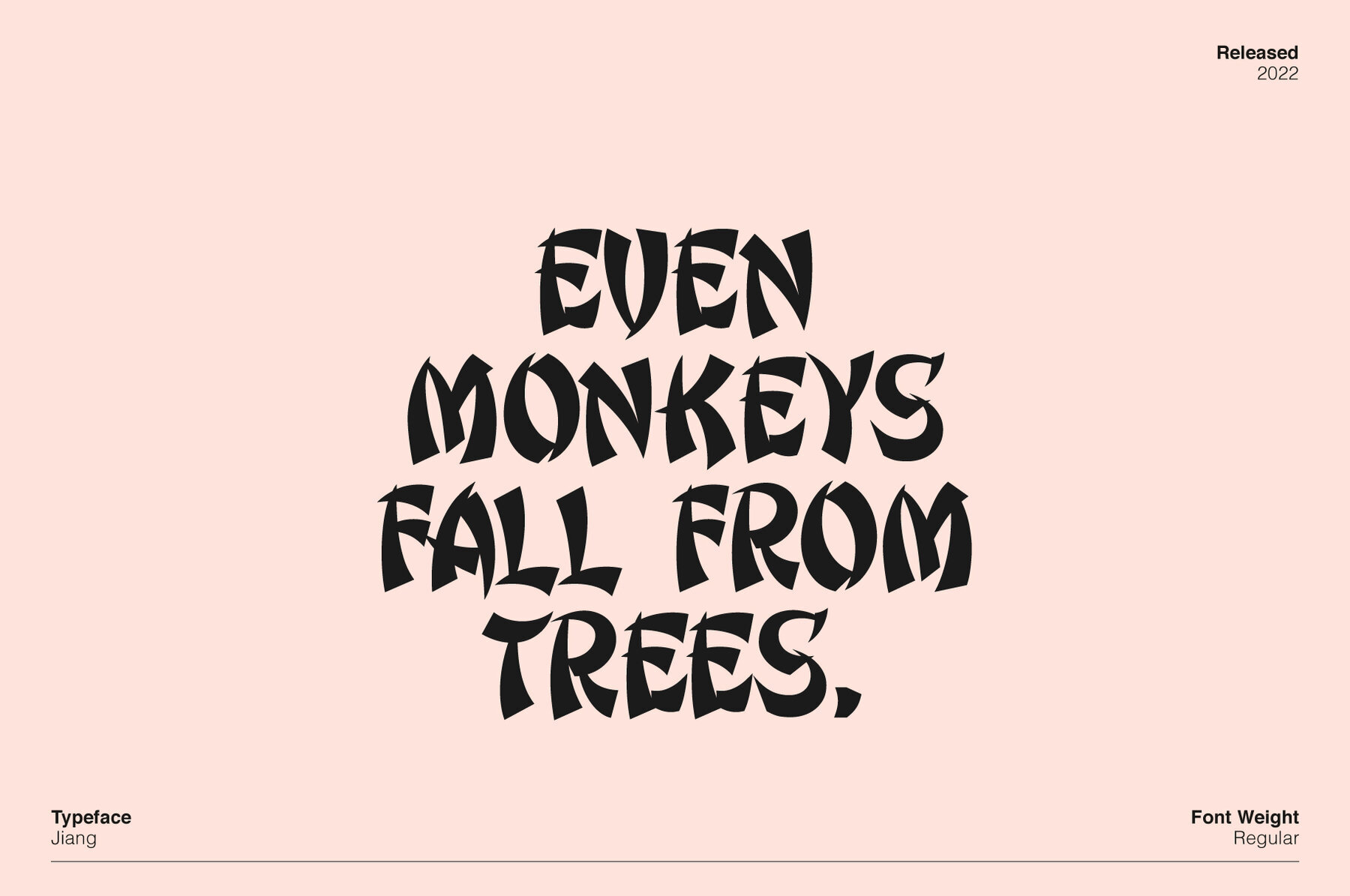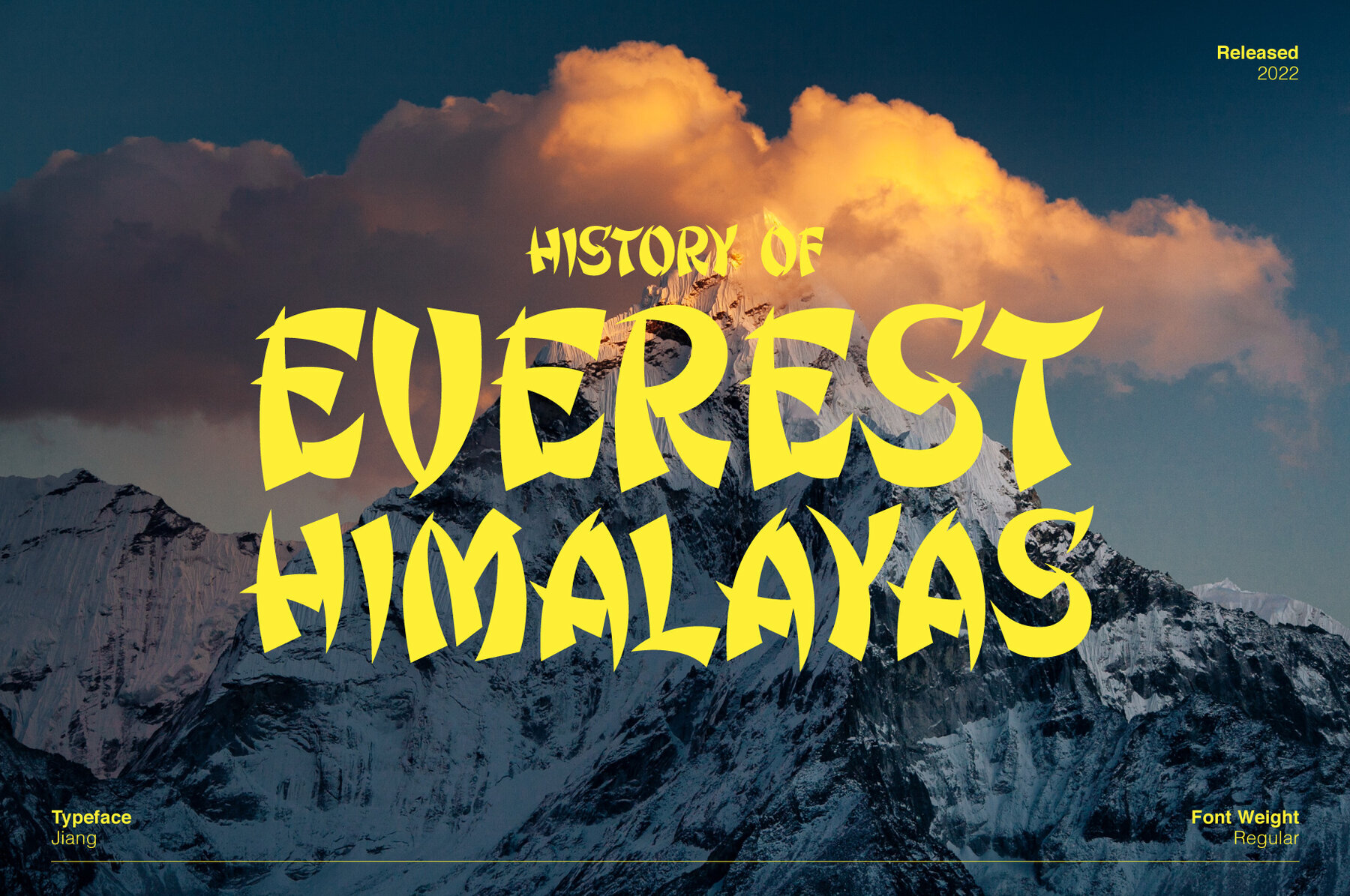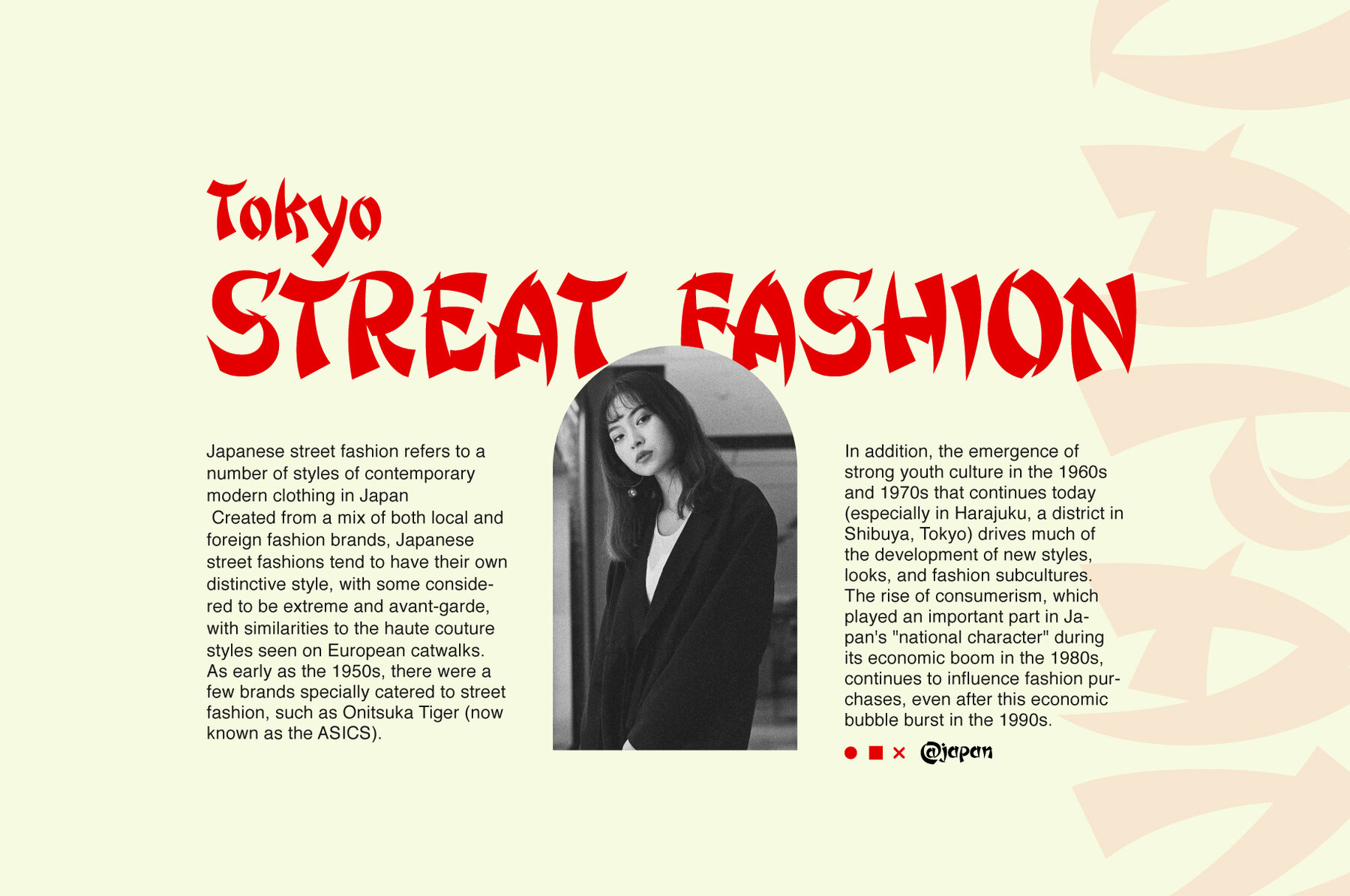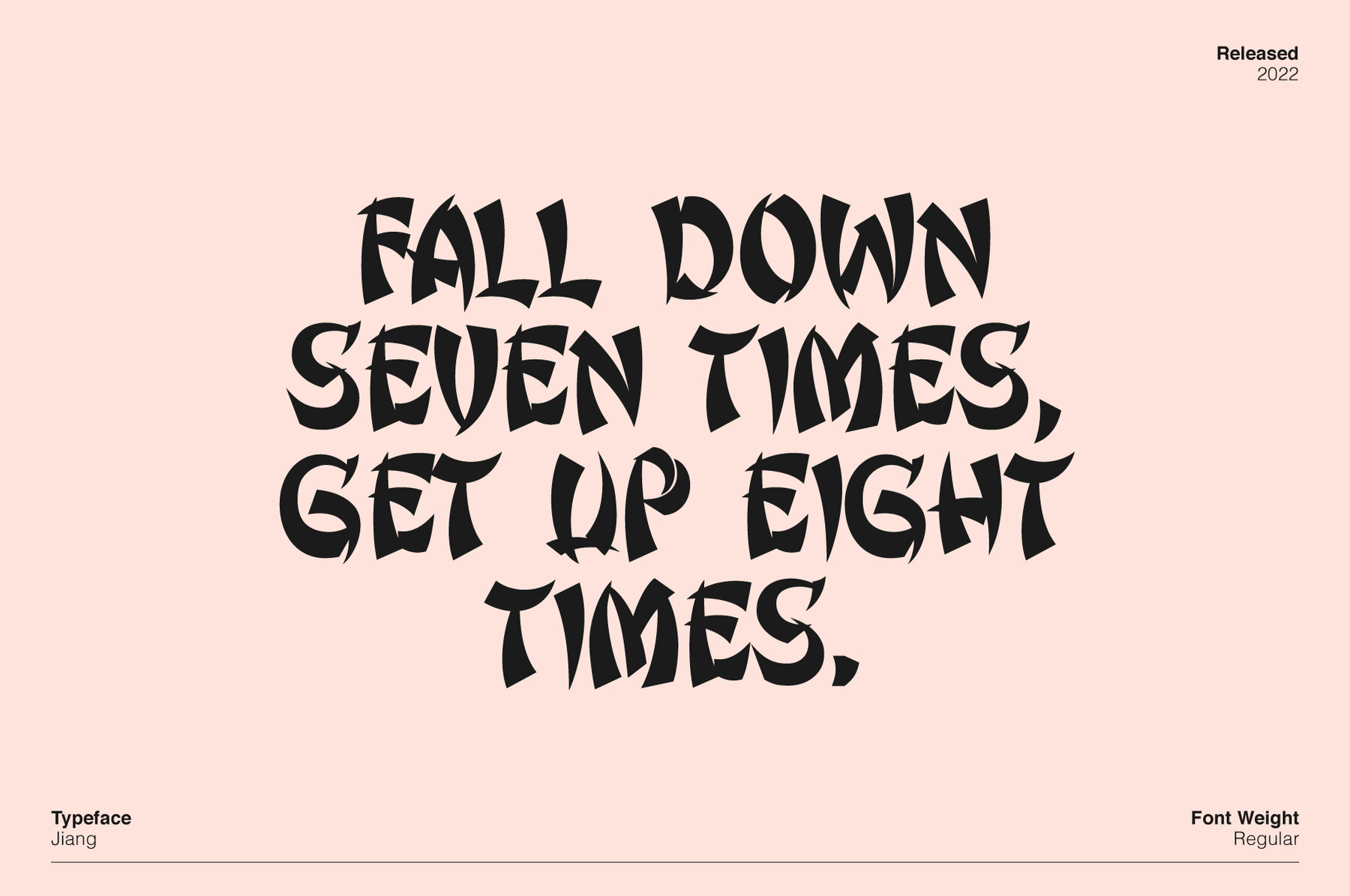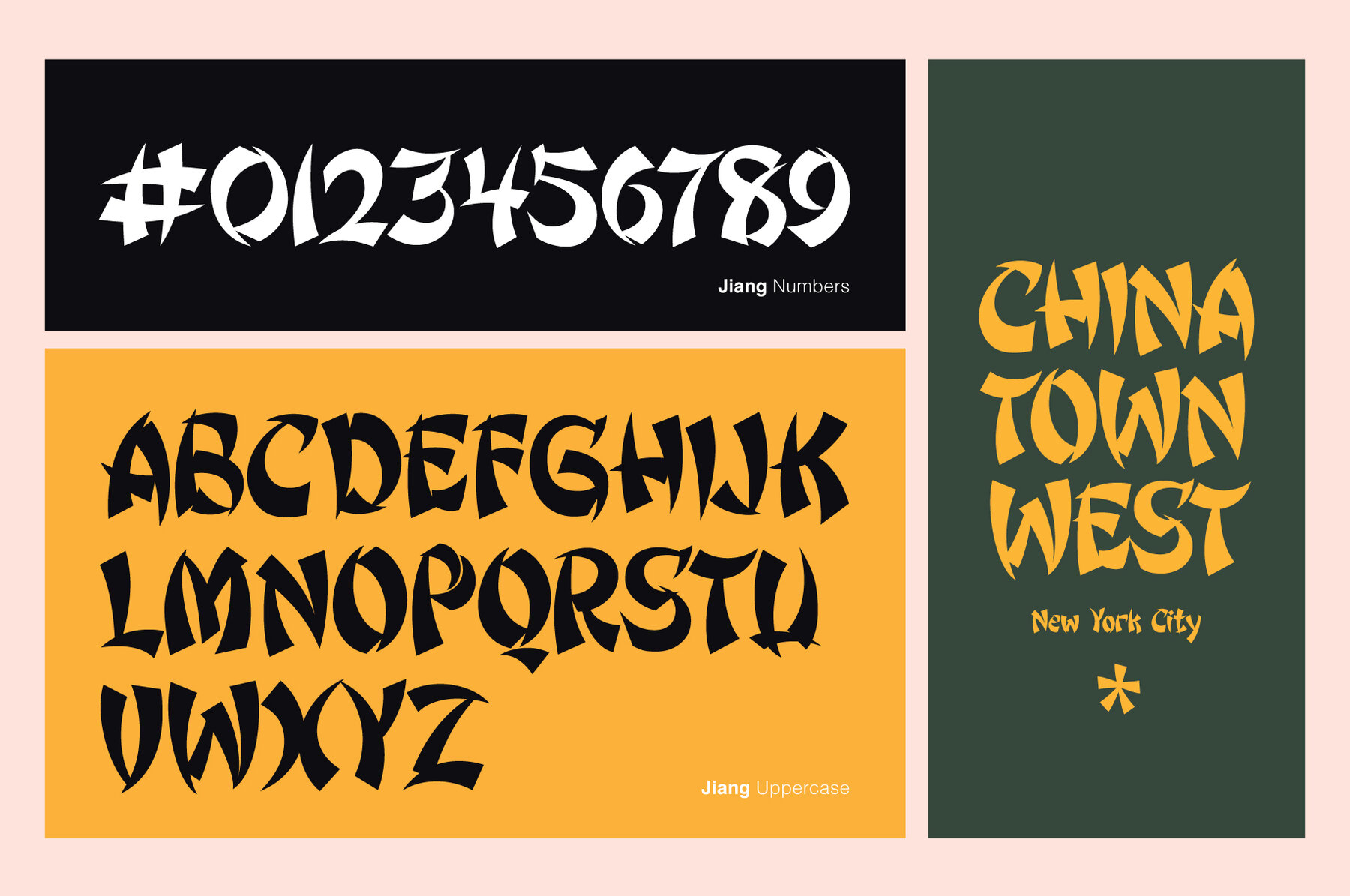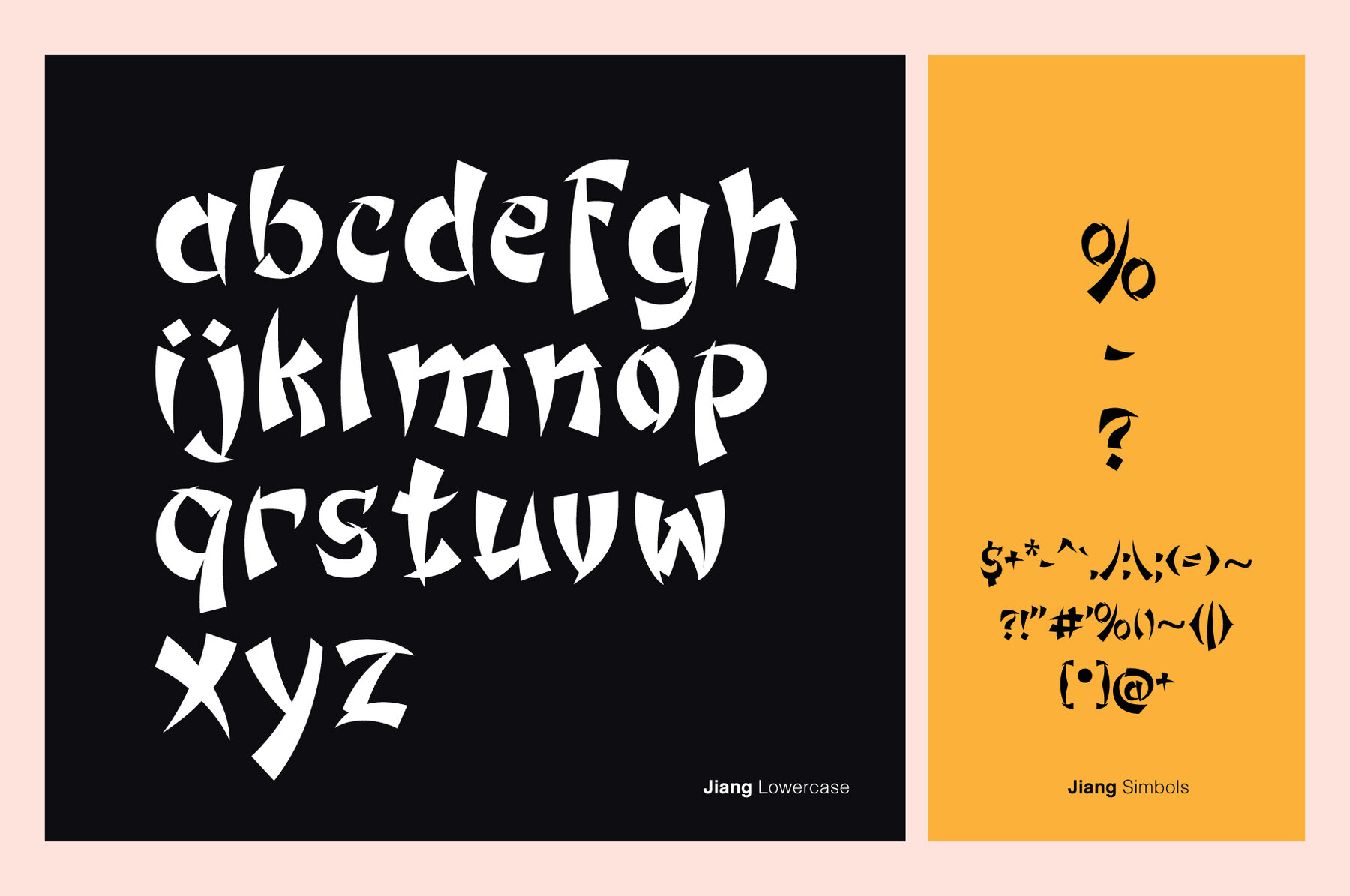
Jiang Font
Jiang Regular
Jiang is an Asian inspired typeface. It’ sharp features grabs your attention right away. It’s ideal for restaurants, movies, brochure, posters, quotes, Youtube, magazines, and logos. Another important feature is that this font is multilingual. Start utilizing Jiang in your projects to make them stand out. Enjoy!